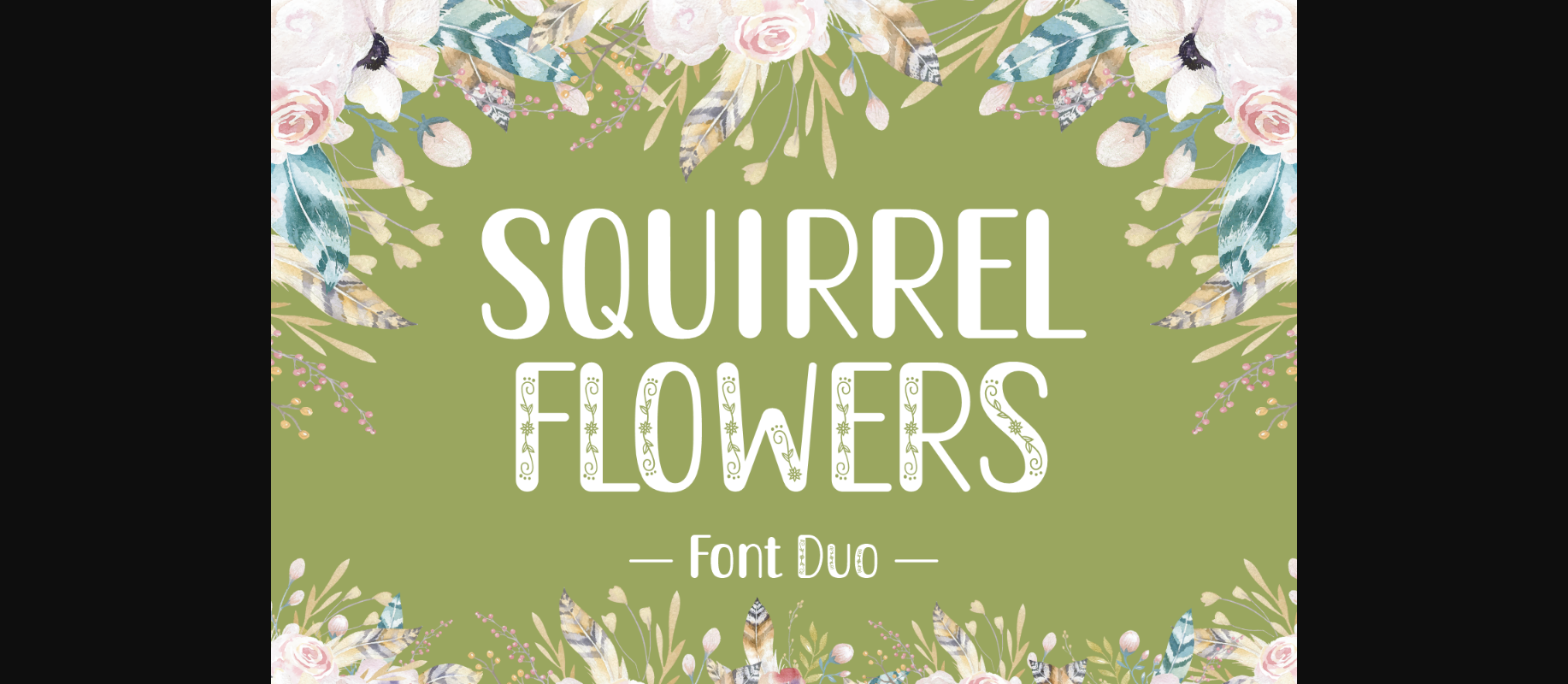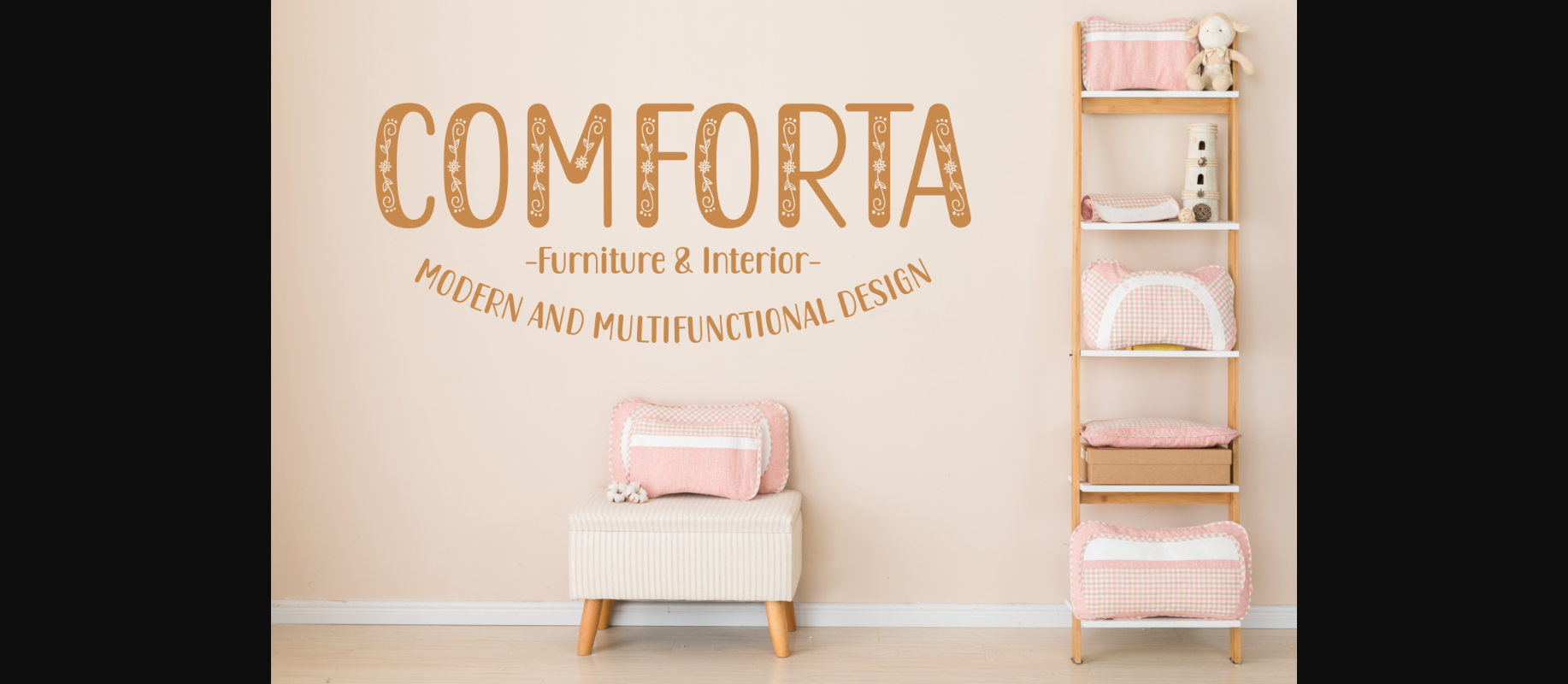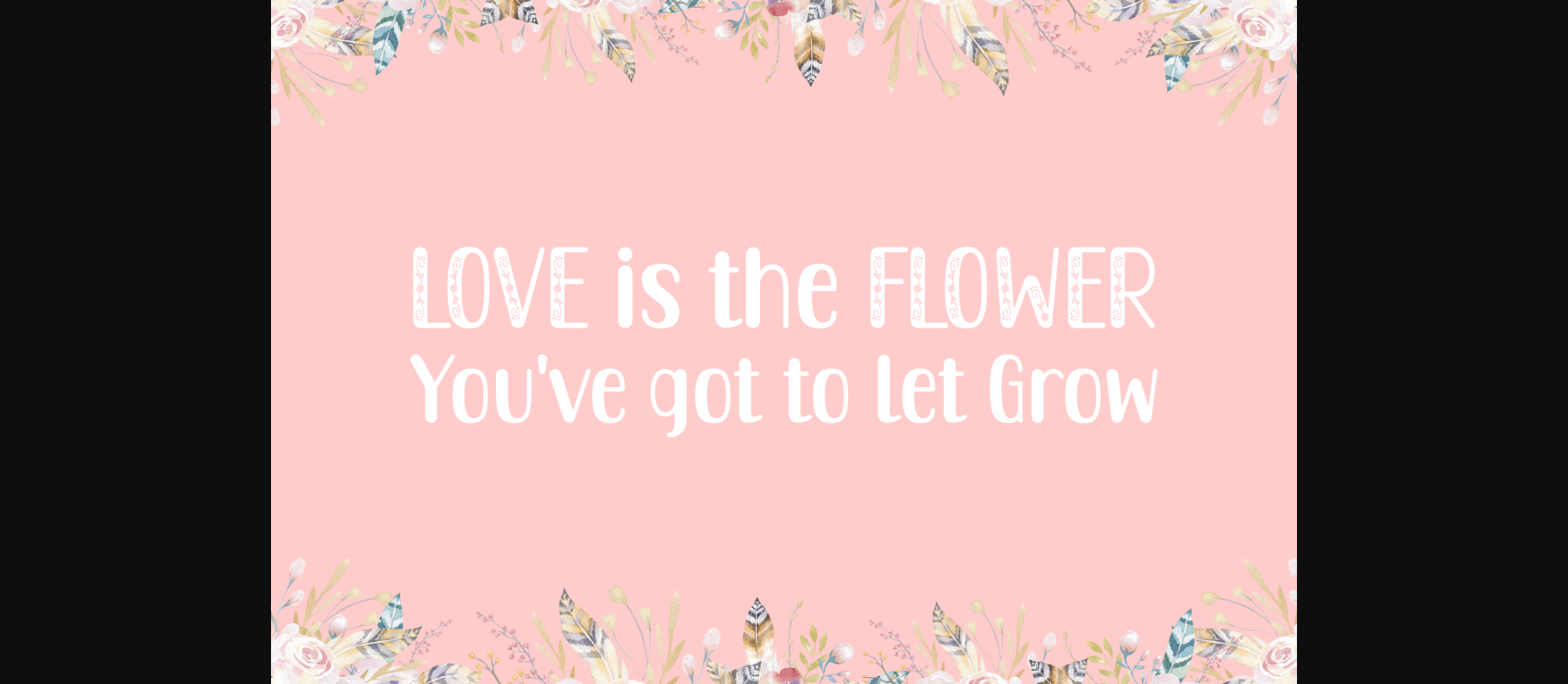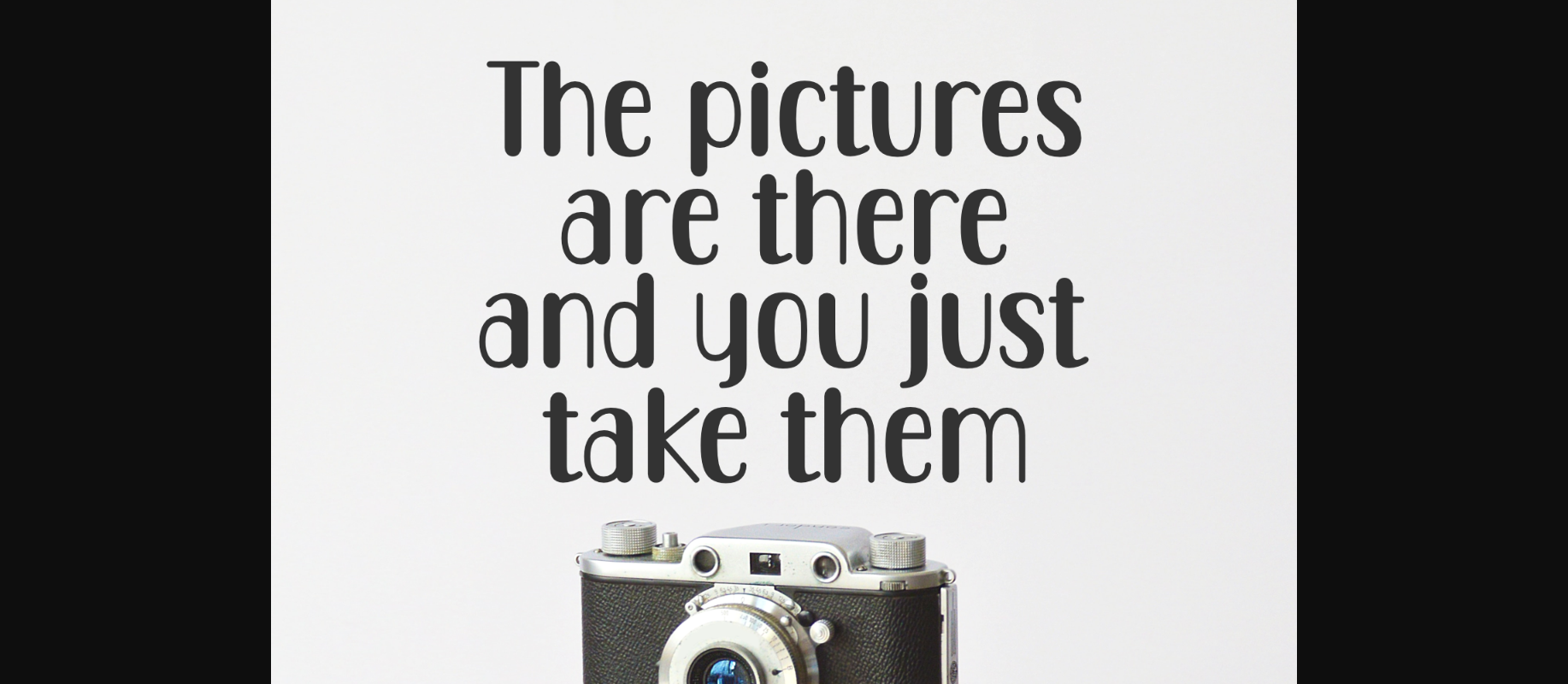
Squirrel Duo Font
About Squirrel Duo Font
Squirrel Duo is a lovely duo decorative font. You can choose from the Regular version or the floral-theme one. This duo font is perfect for nature ads, furniture branding, flower shop designs, logos, and quotes.